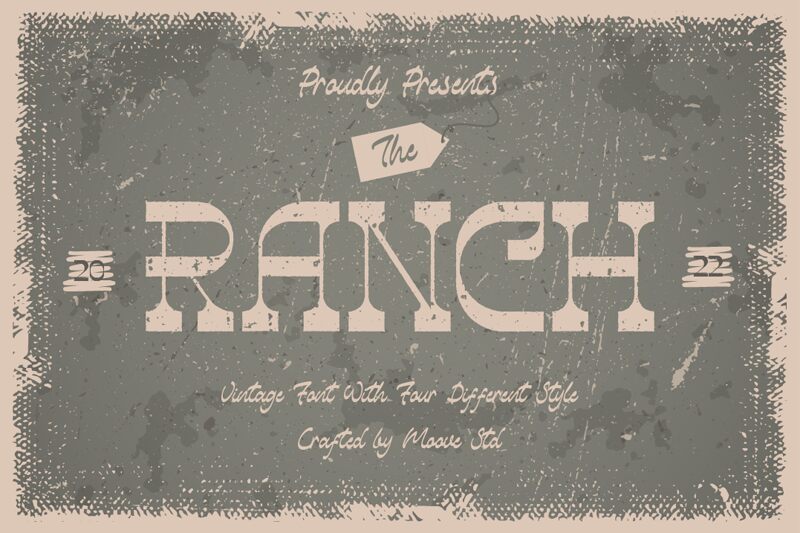
The Ranch Sketch
The Ranch Sketch, crafted by Moove Studio, is a captivating western-inspired font that exudes a rugged charm. Its sketch-like strokes and organic linework create a sense of handcrafted authenticity, evoking the rustic allure of the open range. This display font's distinct character and bold presence make it a standout choice for projects seeking to convey a bold, adventurous aesthetic.
The versatility of The Ranch Sketch font allows it to seamlessly transition across various design applications. Its robust and distinctive letterforms lend themselves seamlessly to branding, packaging, and editorial design, where a touch of rustic elegance is desired. Furthermore, the font's strong visual impact makes it a prime candidate for headlines, event posters, and outdoor signage, where it can command attention and establish a powerful brand identity.